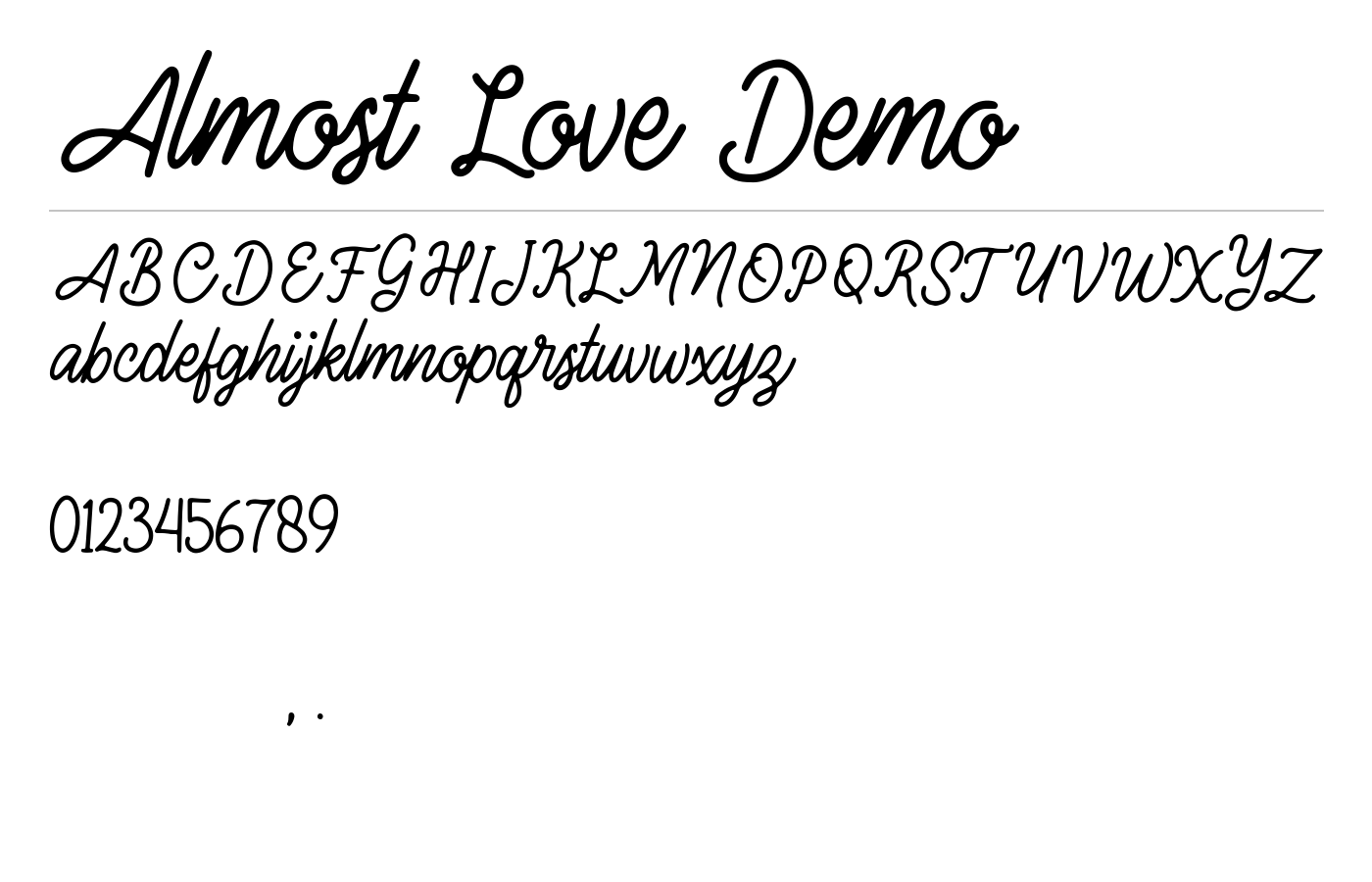
Almost Love Demo is a charming script font with smooth, flowing strokes that evoke a handwritten, casual elegance. Its slender, slightly condensed letterforms and moderate contrast make it perfect for adding a personal touch to invitations, branding, and creative projects that seek warmth and friendliness. This font works well in designs that want to convey intimacy and approachability with a stylish, yet relaxed feel.
Almost Love Demo Font
About Almost Love Demo Font
| Font family | Almost Love Demo Font |
| Designer | Forberas Club |